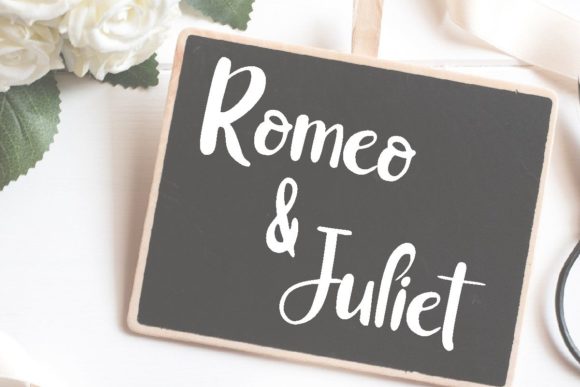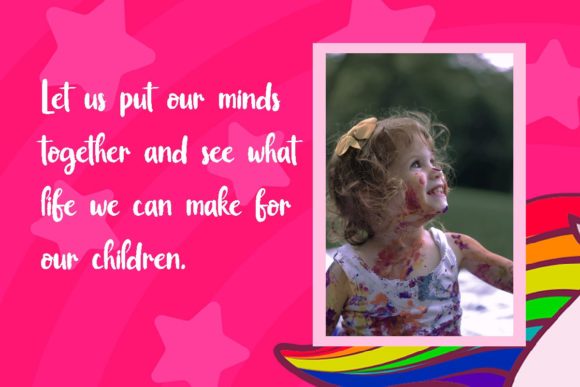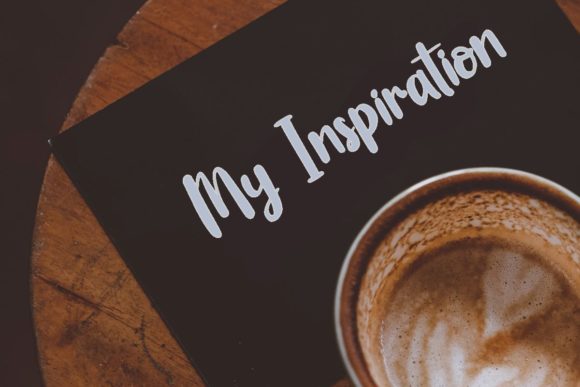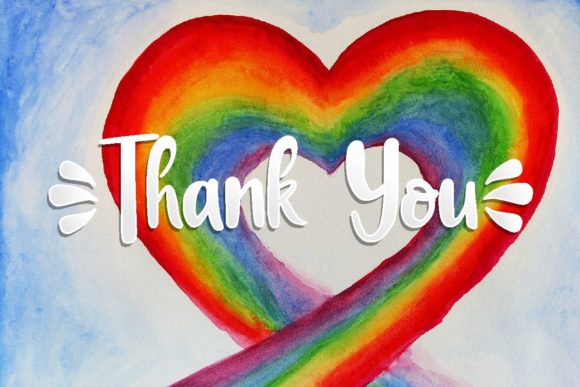
Rainbows Font
About Rainbows Font
Rainbows is a delightful and playful handwritten font that exudes a joyful and lively vibe. With its simple and charming letterforms, this font brings a sense of fun and cheerfulness to your designs. Whether you’re creating greeting cards, children’s book illustrations, social media graphics, or any other design project, Rainbows adds a touch of brightness and positivity.
The playful nature of Rainbows makes it highly versatile and suitable for a wide range of design ideas. Its whimsical and jolly appearance instantly captures attention and creates a sense of delight. The letters dance across the baseline, adding a sense of movement and energy to your text. Whether you’re aiming for a playful and vibrant look or a more lighthearted and carefree approach, Rainbows can adapt to your desired style.
This font’s simplicity and jolly style make it perfect for adding a touch of happiness to your designs. The clean and legible letterforms ensure easy readability, while the fun and lively nature of the handwriting bring a sense of childlike wonder to your text. Whether you’re creating designs for children or simply want to infuse your work with a sense of positivity, Rainbows is an excellent choice.
Rainbows is a font that effortlessly brightens up the aesthetics of your designs. Its simple and playful nature adds an element of joy and excitement, making it ideal for designs that need a burst of liveliness. Whether you’re designing for a party, creating illustrations, or adding a playful touch to your branding, this font will bring a smile to your audience’s faces.
In summary, Rainbows is a simple, jolly, and playful handwritten font that adds a sense of life and cheerfulness to your designs. With its delightful and whimsical style, it is the perfect choice for brightening up your projects. Whether you’re aiming for a fun and vibrant look or want to evoke a sense of happiness, Rainbows is sure to bring a touch of brightness to your designs.